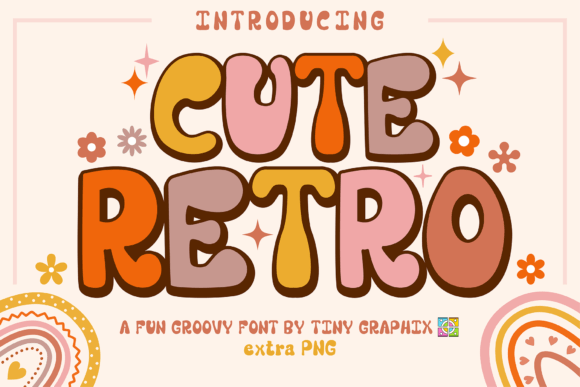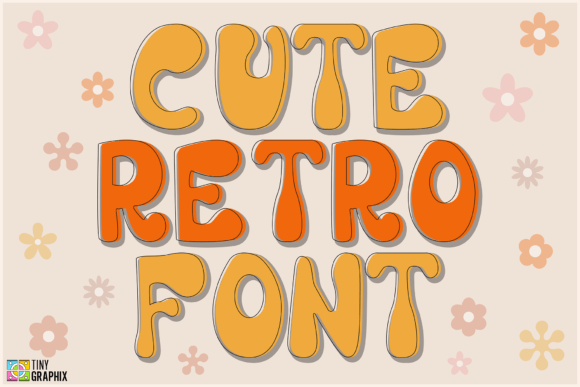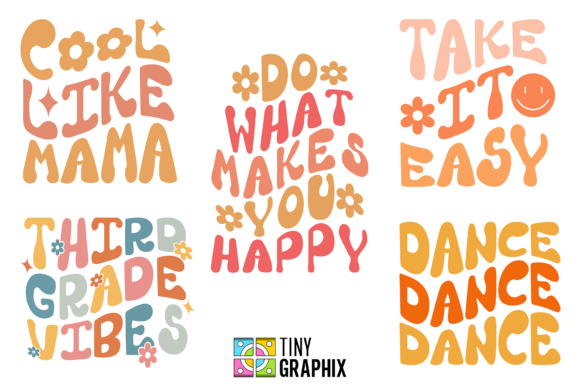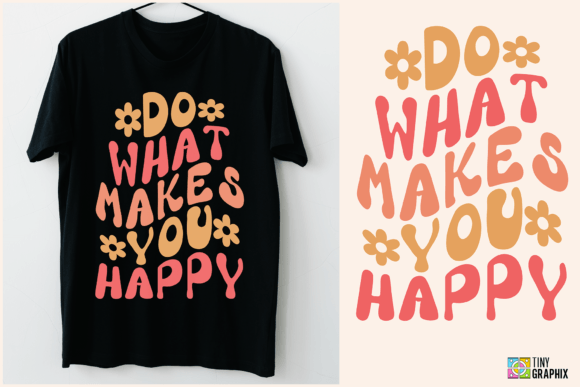
Cute Retro Font
About the Cute Retro Font
From logos to headlines, the Cute Retro Font is the perfect choice for making a lasting impression. CUTE RETRO Font is a stylish, and playful cool, fun and display font. Whether you’re using it for crafts, greeting cards, headlines, stickers, t shirt designs, quotes, titles, digital design, presentations, and many more!
CUTE RETRO Font excels in display applications such as headlines, logos, short taglines, and packaging where its playful character shines. It’s ideal for projects needing a fun, retro vibe – think vintage-inspired branding for boutiques, ice cream shops, or children’s products. Avoid using it for body text or lengthy paragraphs; its quirky forms are not optimized for readability in extended use.
Pair CUTE RETRO with a clean sans-serif like Open Sans for a balanced contrast, or a classic serif such as Garamond for a more sophisticated, retro feel. A simple, geometric sans-serif would also provide a nice modern counterpoint.
The font’s personality is undeniably playful and nostalgic, evoking a sense of lighthearted fun and retro charm. Its bold strokes and slightly uneven letterforms add a handcrafted quality.
Cute Retro Font Usage Examples
Cute Retro Font Example